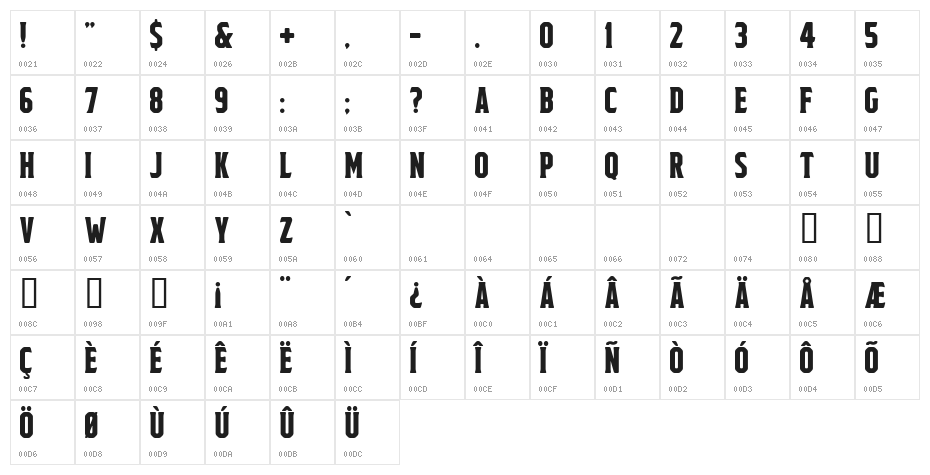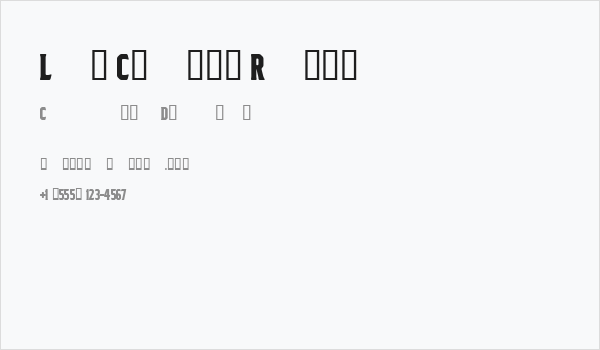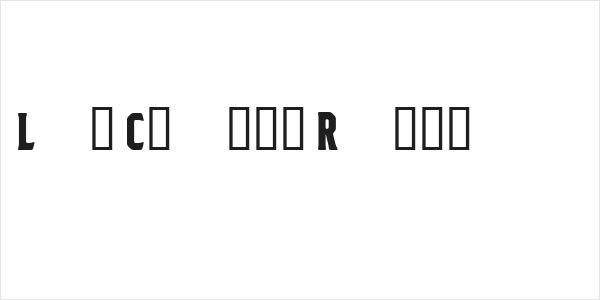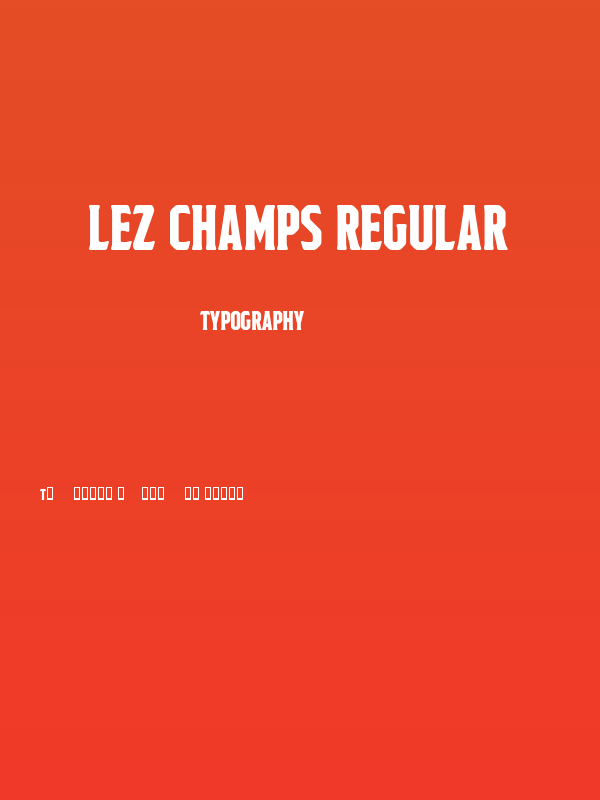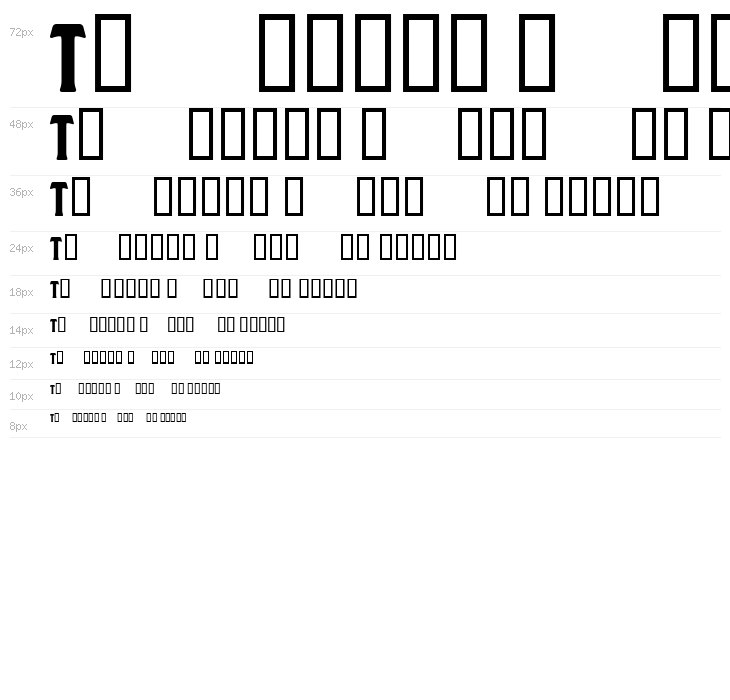
Lez Champs Regular Font
Lez Champs Regular Description
This font features a bold and impactful design with strong, thick strokes that give it a commanding presence. The uppercase letters are particularly striking, with a slightly condensed form that enhances their boldness. The lowercase letters maintain the same robust style, ensuring consistency across the typeface. The numerals are equally bold, making them stand out clearly. Special characters are designed with the same attention to detail, ensuring they integrate seamlessly with the rest of the font. The overall appearance is modern yet retains a touch of vintage charm, making it versatile for various design needs.
| Overall Style | Modern, Vintage |
| Proposed Projects | Ideal for branding, headlines, posters, and any project requiring a strong visual impact. |